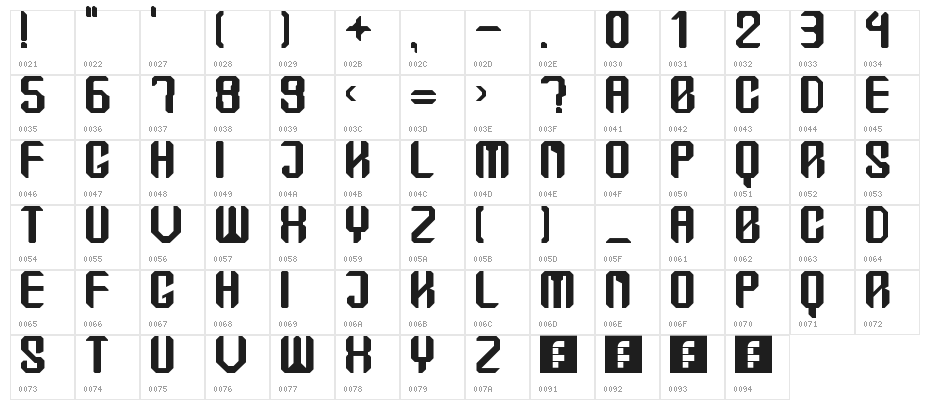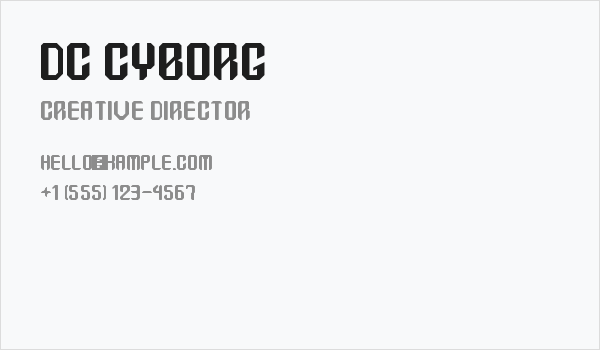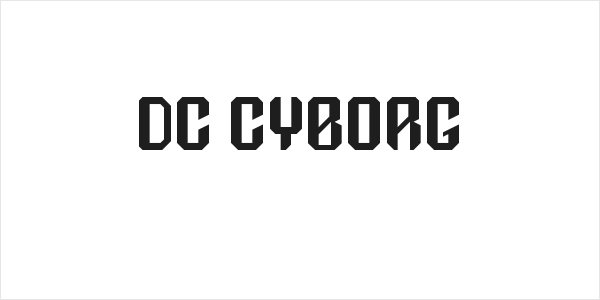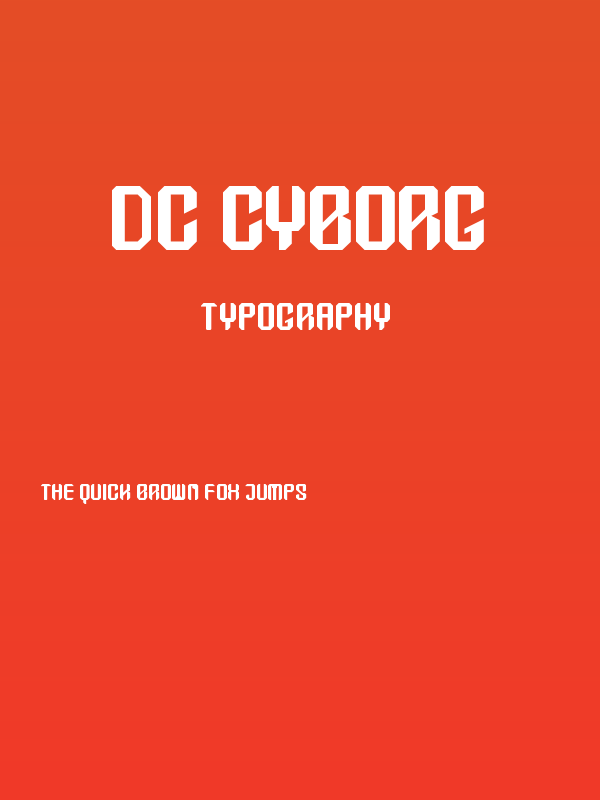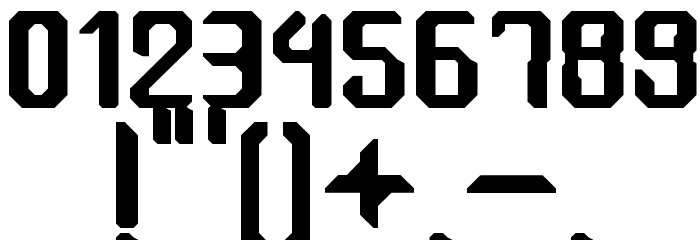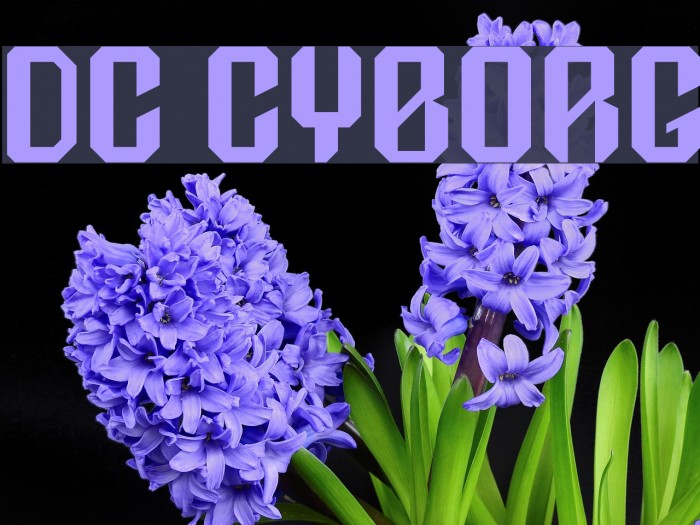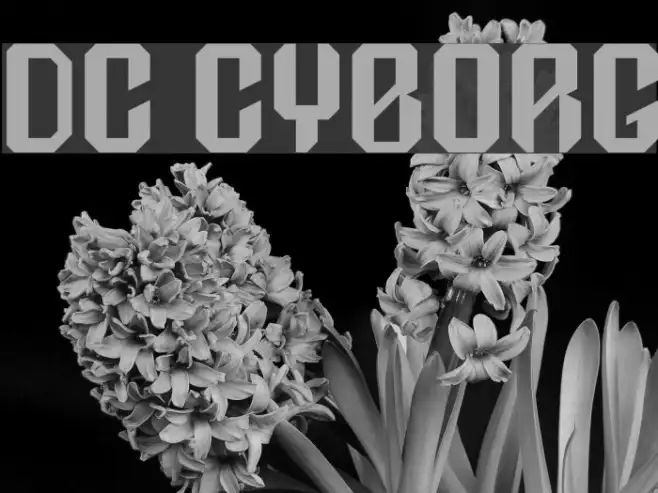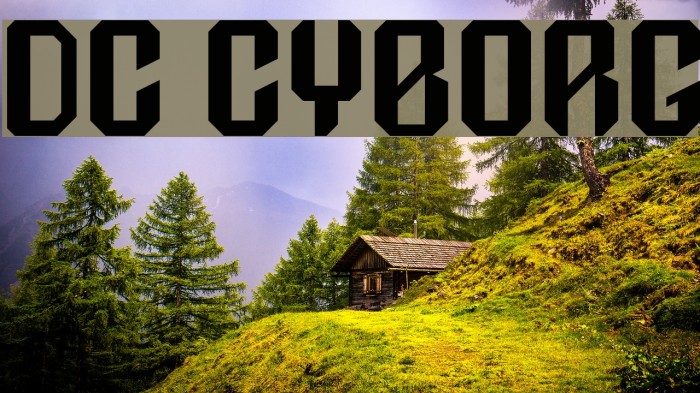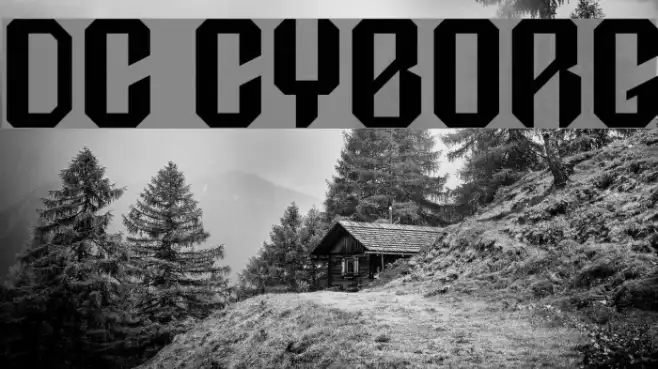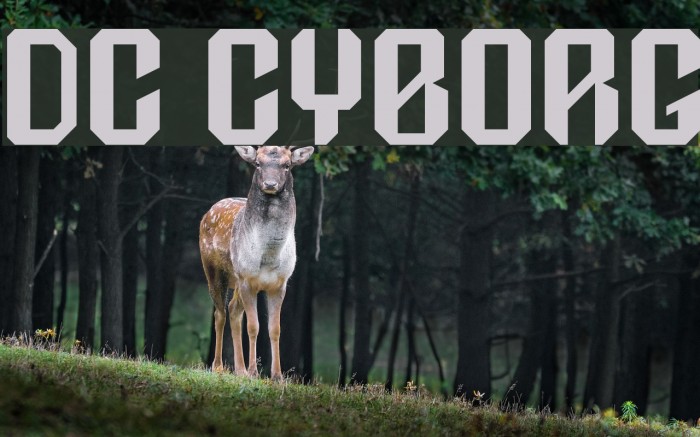
DC Cyborg Font
DC Cyborg Description
This font features a bold, geometric design with a futuristic and industrial aesthetic. The characters are constructed with sharp angles and straight lines, giving them a mechanical and robotic feel. The uppercase letters are uniform in height and width, creating a cohesive and structured appearance. The numbers and special characters maintain the same angular style, ensuring consistency across all glyphs. This font's unique design makes it stand out, ideal for projects that require a modern and edgy look.
| Proposed Projects | Ideal for technology branding, video game titles, sci-fi movie posters, and industrial-themed designs. |